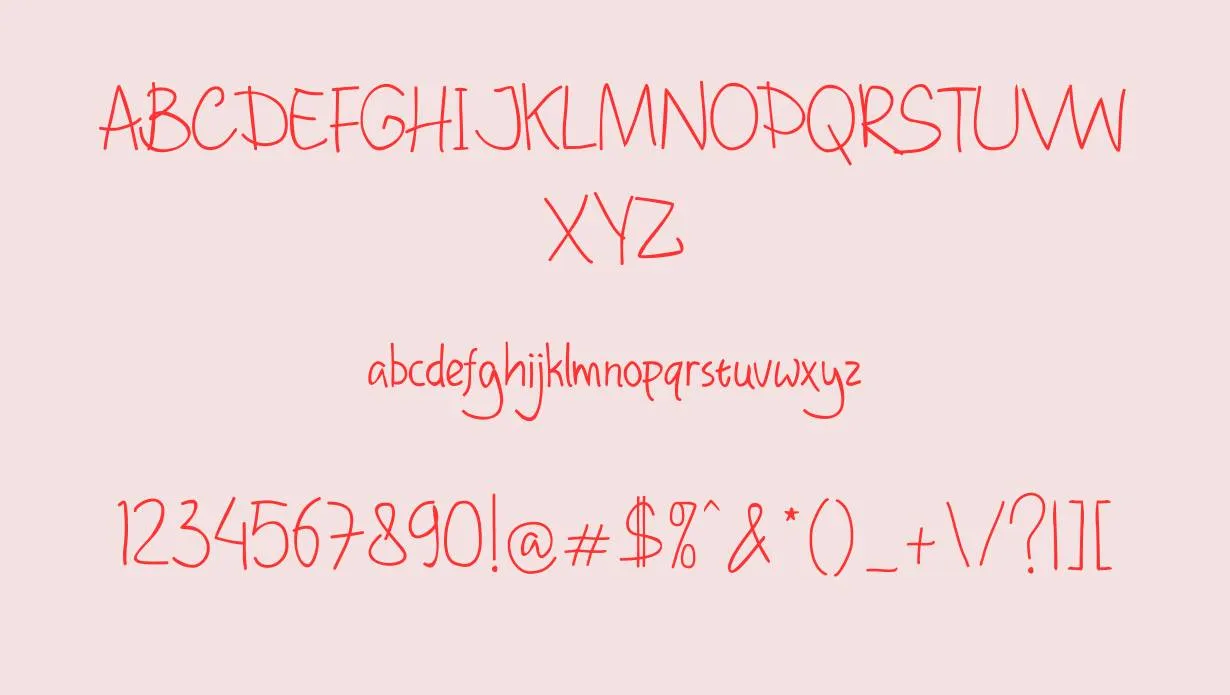
The DHF Happy Birthday Ryan font is like a birthday party in letters. With its festive and playful design, it’s perfect for creating vibrant birthday cards, designing cheerful banners, or adding a touch of celebration to your messages.
This font has a medium weight and standard width, ensuring your words look lively and full of joy. Imagine using DHF Happy Birthday Ryan for a birthday invitation, turning your text into a colorful celebration.
| Name | DHF Happy Birthday Ryan Font |
| Designer | Dexsar Harry Anugrah |